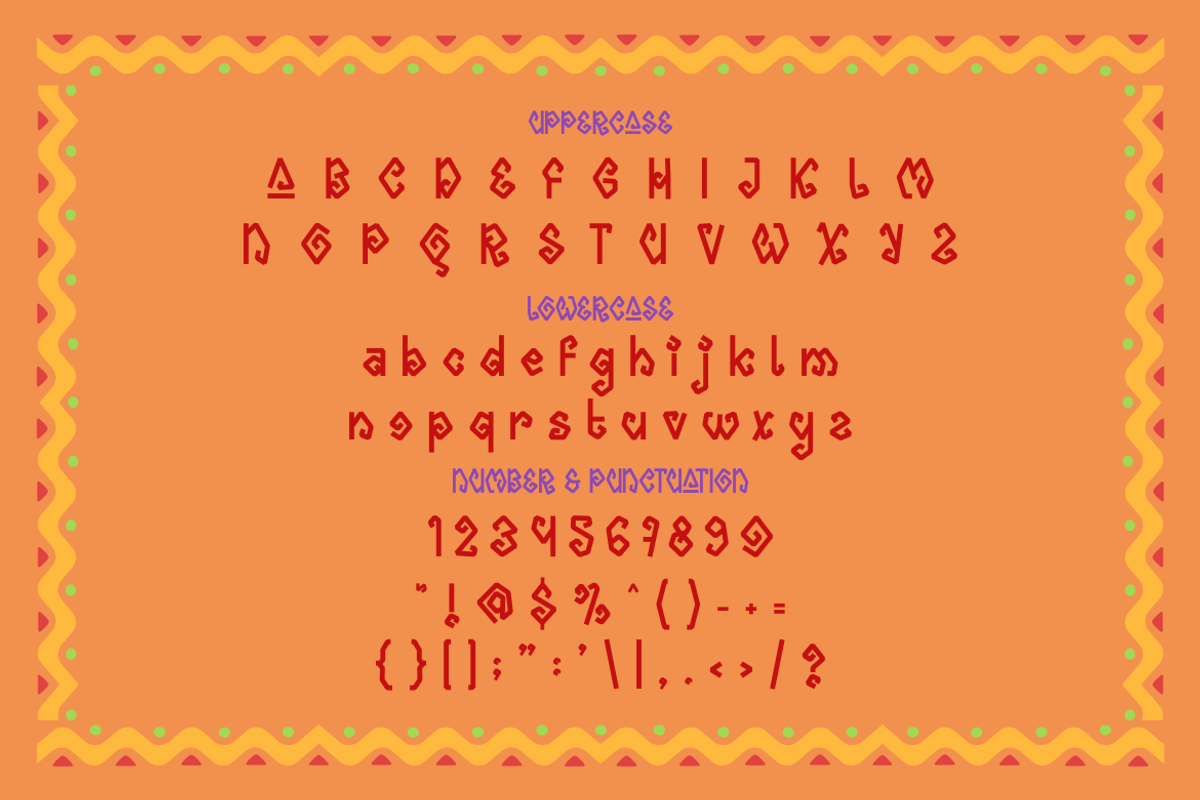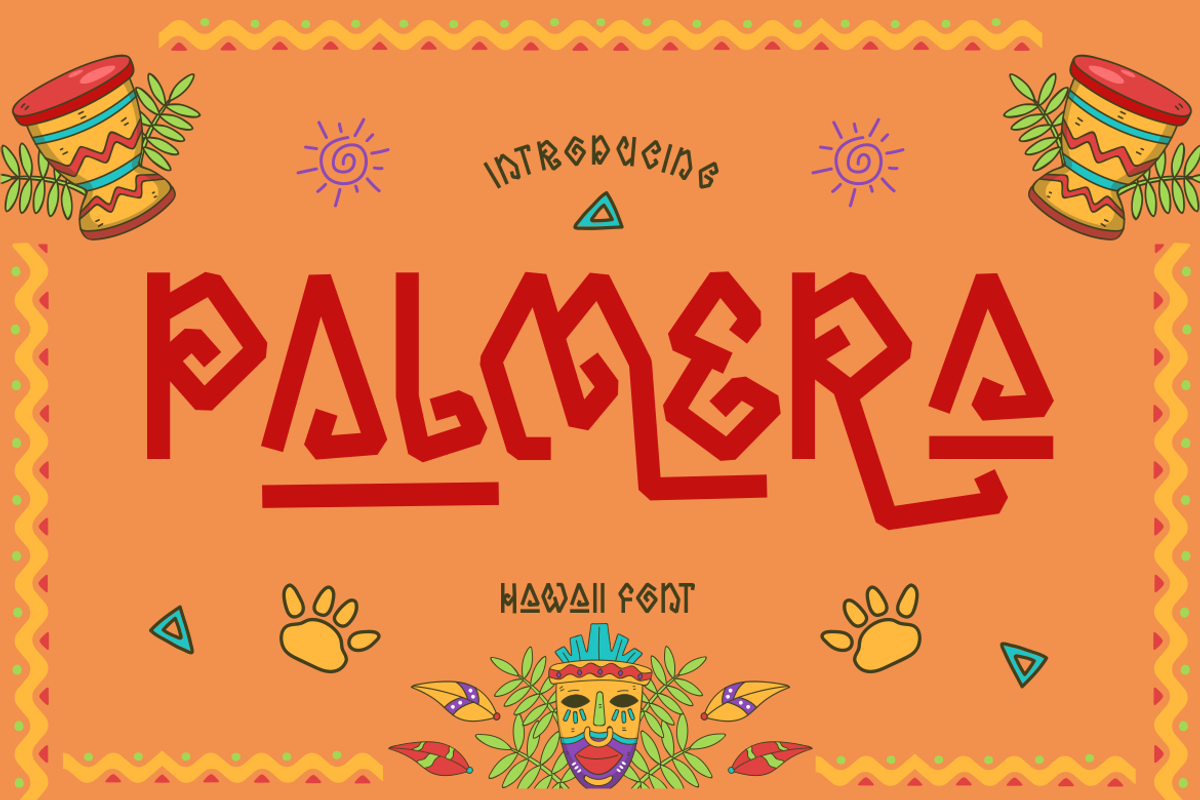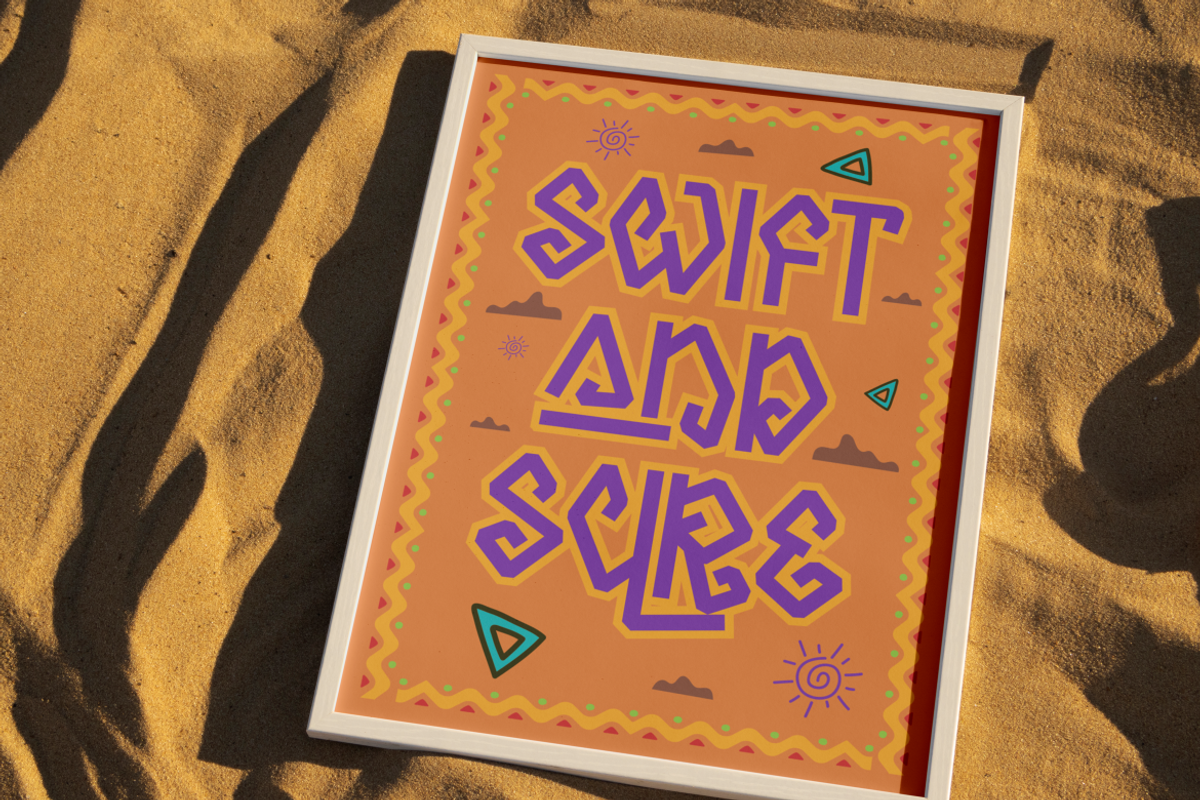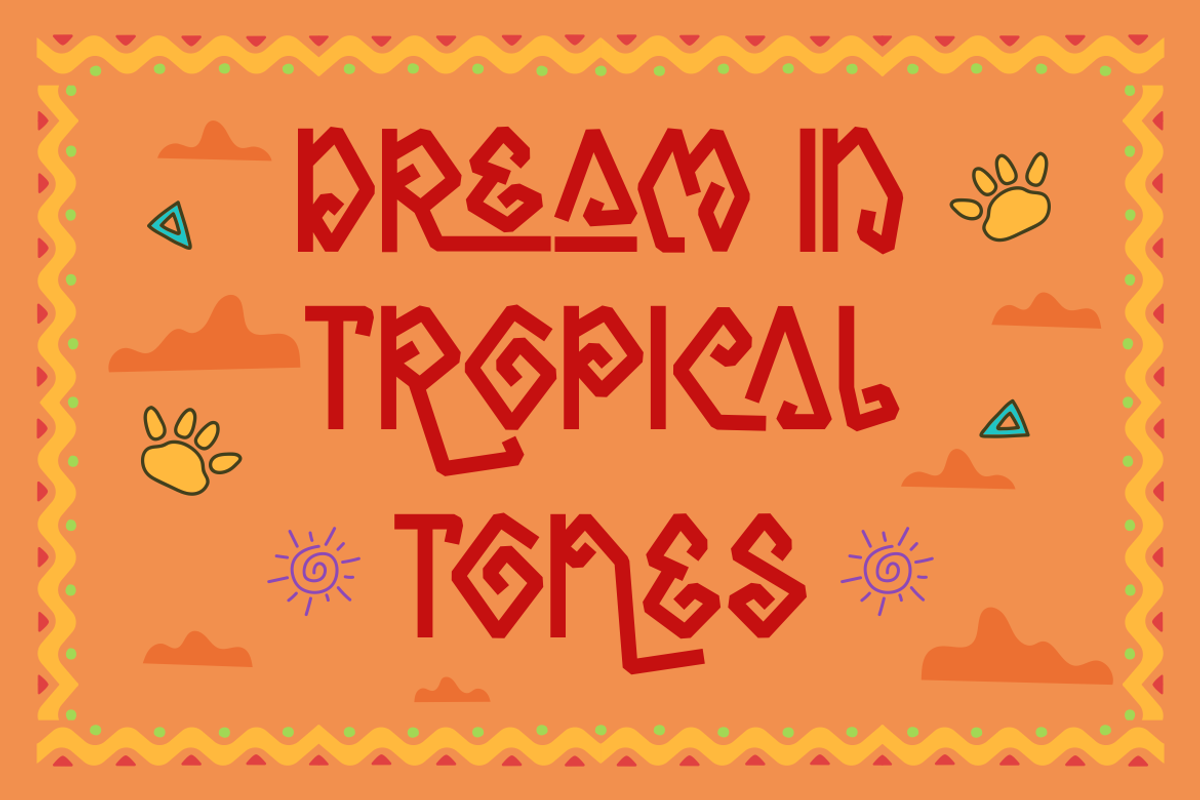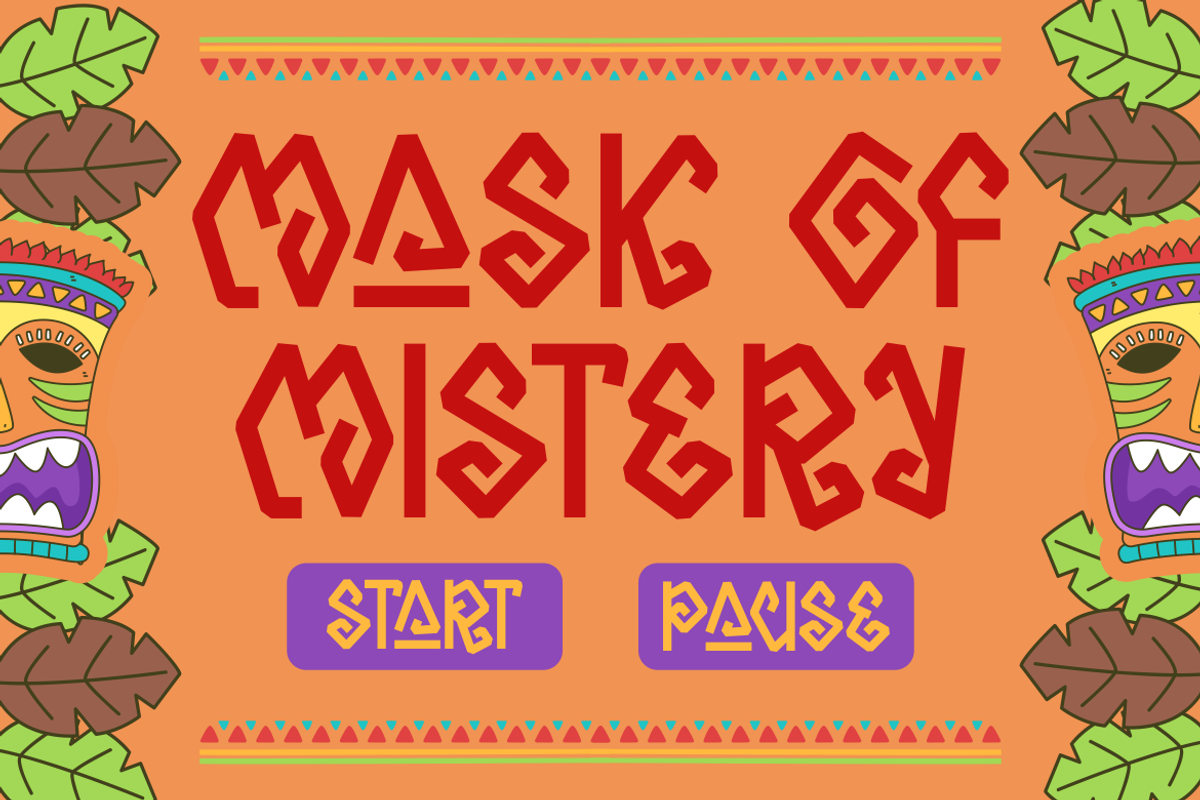
Palmera Display Hawaii Font
Palmera Display Hawaii Font brings a lively island spirit to every project with its bold, handcrafted look. Each letter features sharp angles, uneven strokes, and playful geometric twists that echo traditional tiki patterns and tribal motifs. The characters are tall, slightly narrow, and built with strong line weight, giving the font a confident presence while still keeping a fun, relaxed personality. The irregular corners and spiral-inspired details create a rhythmic flow that feels organic and expressive. This style makes Palmera Display Hawaii Font perfect for designs that need a tropical identity, cultural influence, or energetic visual story.
This font offers a warm balance of playful display character and handcrafted artistry, making text feel dynamic and full of personality. The structure supports easy readability despite its decorative nature, allowing it to shine in logo design, branding, packaging, posters, headlines, book covers, stickers, magazines, greeting cards, film titles, and creative advertising. The shapes carry a bold tropical identity that feels ideal for beach themes, cultural markets, crafting projects, outdoor events, and handmade businesses. With its unique character system and memorable look, Palmera Display Hawaii Font gives designers a powerful way to express authentic island charm.